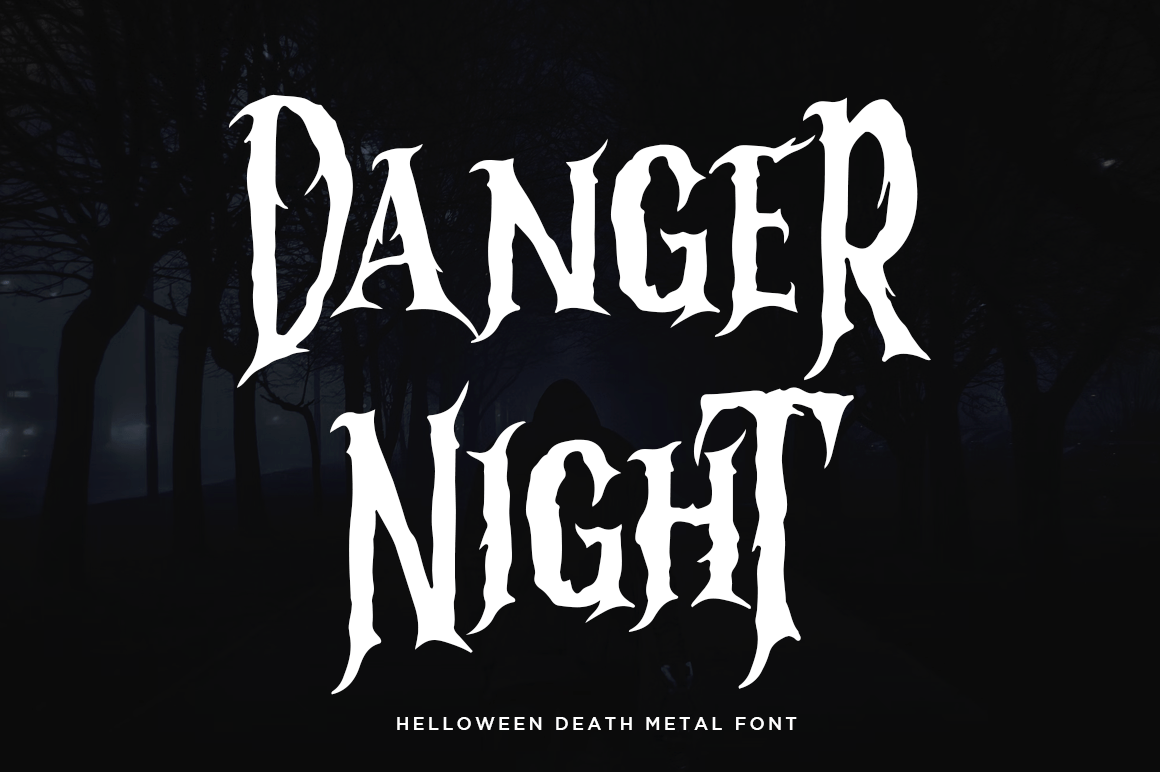
DANGER NIGHT
DANGER NIGHT is the horror display typeface with high contrast all caps style looks and feel nice balanced.
Honestly it works perfectly for headlines, logos, posters, packaging, T-shirts and much more.
Font Features :
- Character set A-Z in All Caps Style
- Ligatures
- Numerals & Punctuation
- Accented Characters
- Multiple Languages Supported